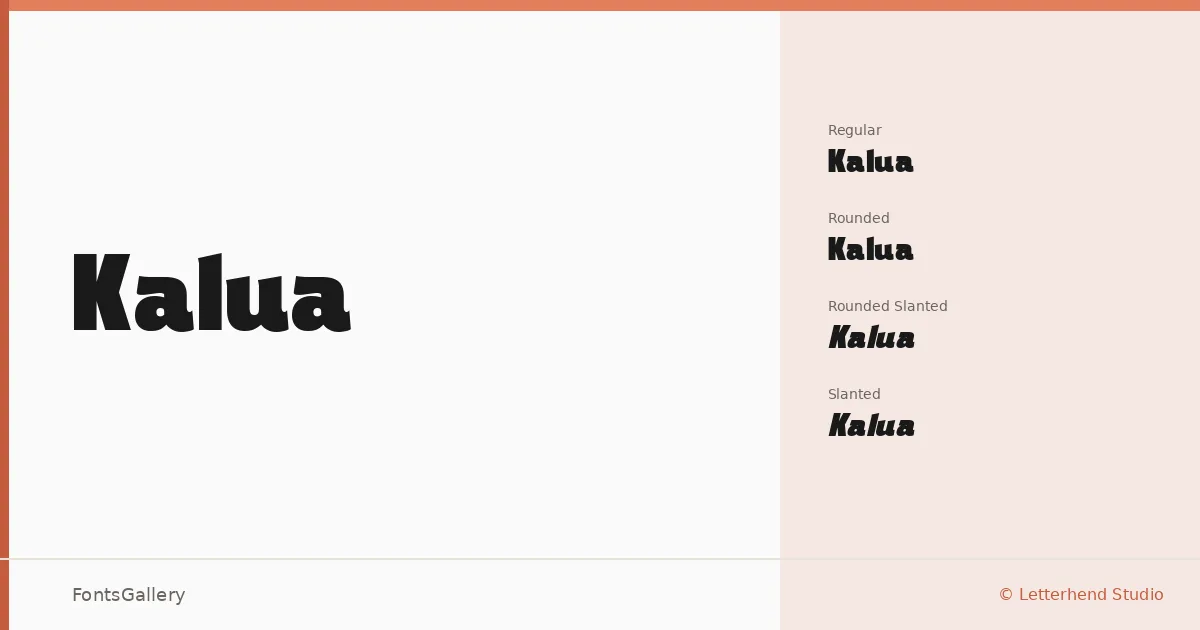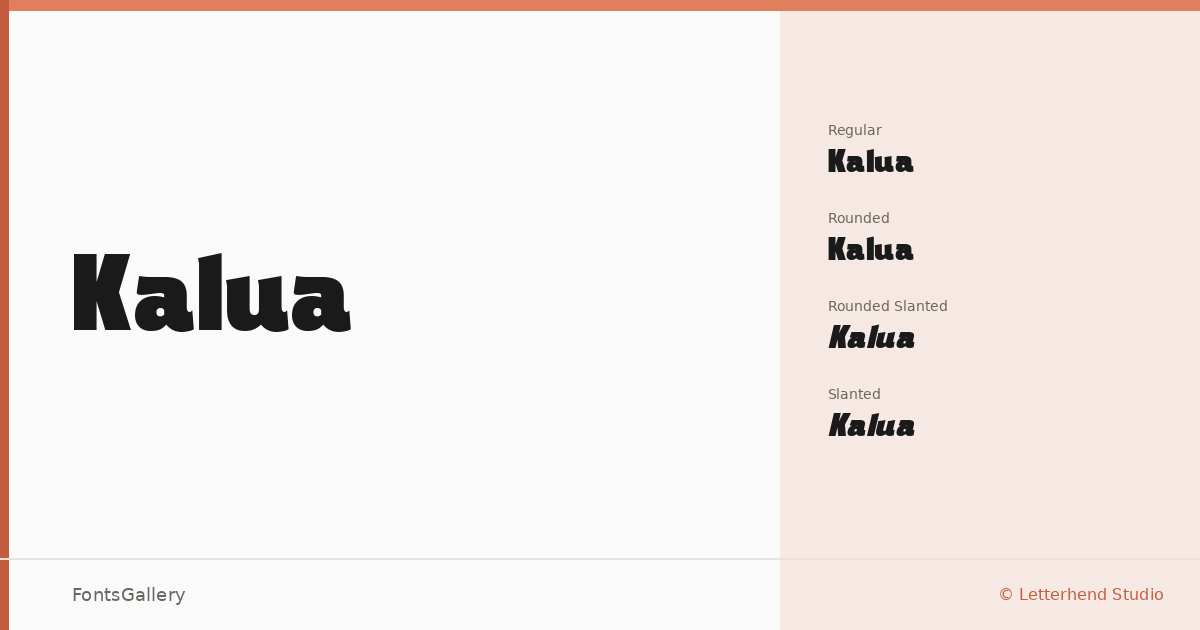
About Kalua Font
There's a bounce to these letterforms — a confidence that reads as playful without losing its edge. Kalua is a display family from Letterhend Studio, built around bold, modern shapes that lean into personality rather than neutrality. The four demo cuts explore that character from multiple angles: Regular, Rounded, Slanted, and Rounded Slanted.
This is a display face, and it commits fully to that role. The base Regular has clean, assertive strokes; the Rounded cut softens those terminals into something warmer and more approachable; the Slanted cuts push energy and forward motion into both. Delivered as TTF files, all four styles carry that same bold, modern mood — the kind of weight that anchors a layout rather than sitting quietly inside one.
The forms are built for scale — headlines, poster type, logo lockups, and t-shirt graphics are where the personality lands best. Branding work that needs immediacy and a touch of fun will get plenty of mileage from the rounded cuts in particular. For text companions, the family pairs well with Helvetica, Aileron, Aresink, Aranea, and Alexandria, all of which offer the restraint that lets a display face like this carry the room.